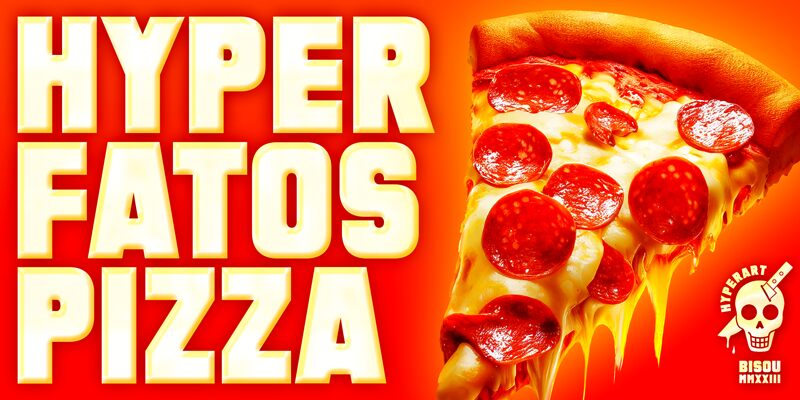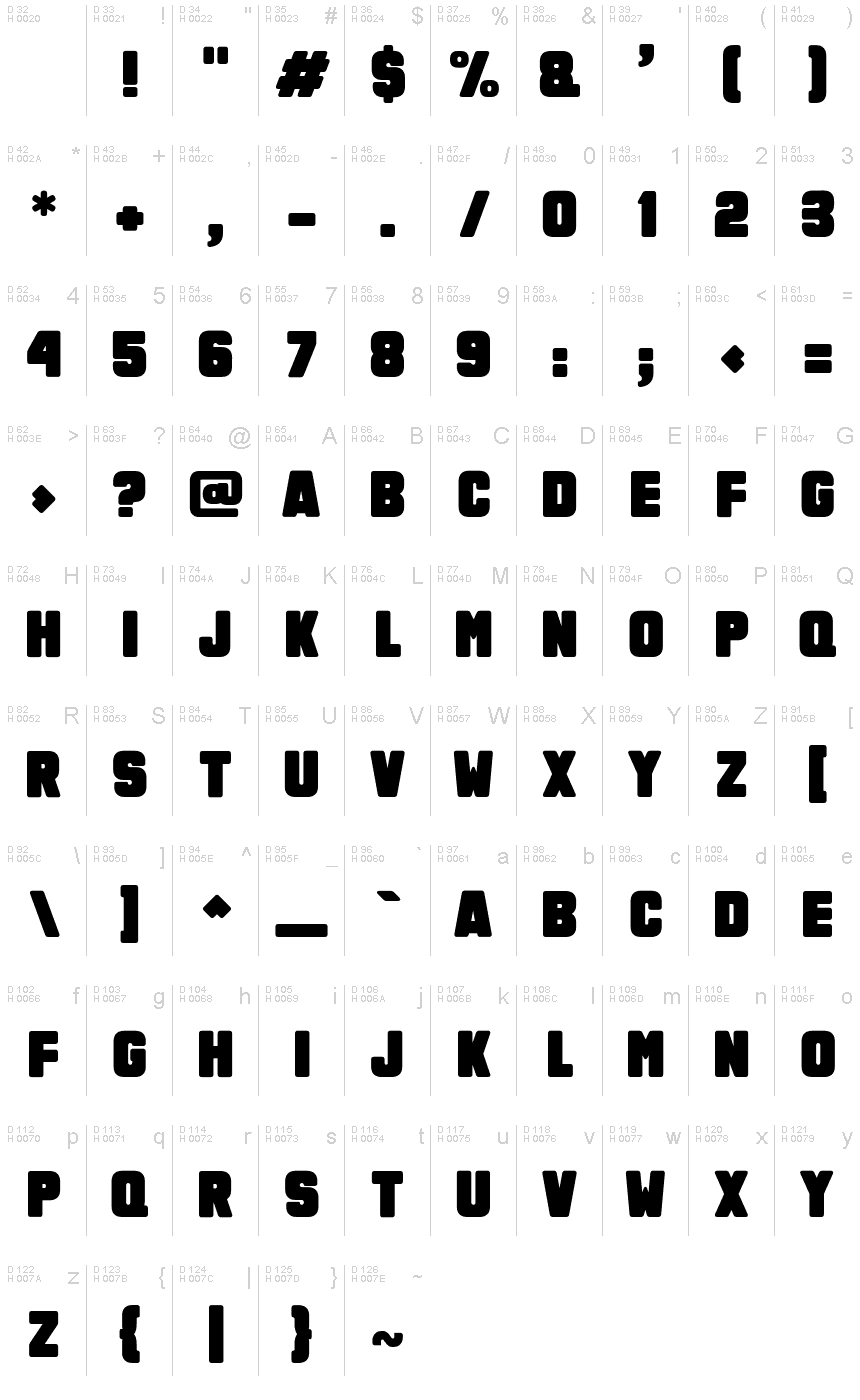
HyperFatosRounded
Hyper Fatos Rounded emerges as a standout choice for designers seeking to make a bold statement. Crafted by Bisou, this member of the Hyper Fatos font family exudes confidence with its extra-bold weight and condensed width. As a sans serif style, it offers clean readability while its rounded edges introduce an approachable warmth to its assertive stance.
The aesthetic appeal of Hyper Fatos Rounded lies in its balanced fusion of robustness and friendliness, making it ideal for impactful headlines and attention-grabbing branding. Its condensed form maximizes space efficiency without compromising on presence, suitable for both digital screens and print media where space is at a premium.
Overall, the unique blend of characteristics possessed by Hyper Fatos Rounded lends itself to diverse creative projects, from modern advertising campaigns to user interface design, where clarity and personality go hand in hand.